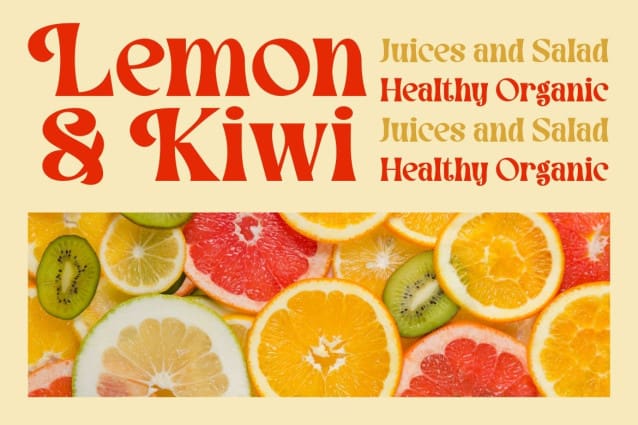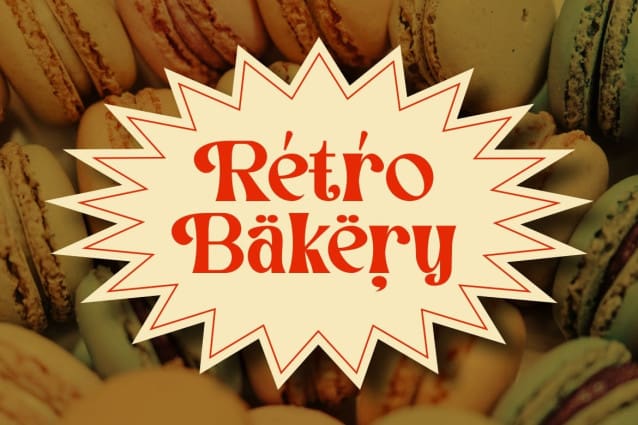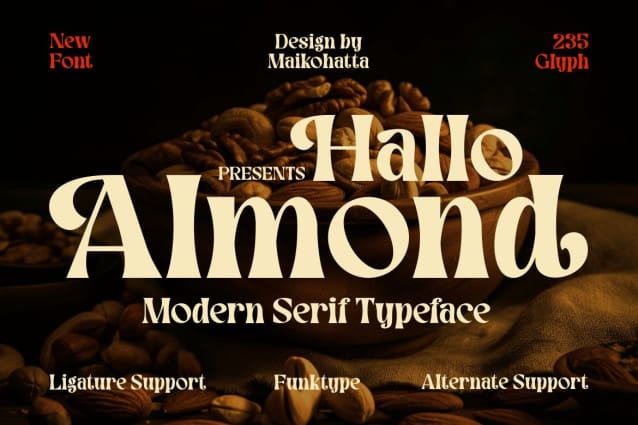
Hallo Almond Font
Hallo Almond Font – Modern Serif Typeface Font. This font has a balanced proportion of stroke thickness and thinness, creating attractive and easy-to-read visuals. This modern serif style is often characterized by a bold distinction between thick and thin lines, providing an understated touch while remaining remarkable